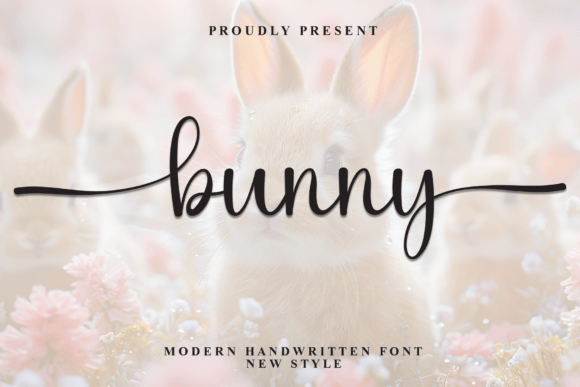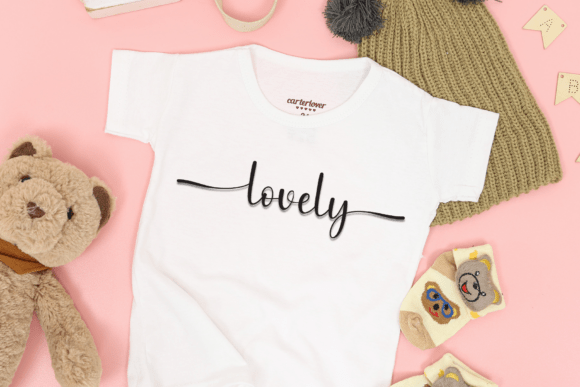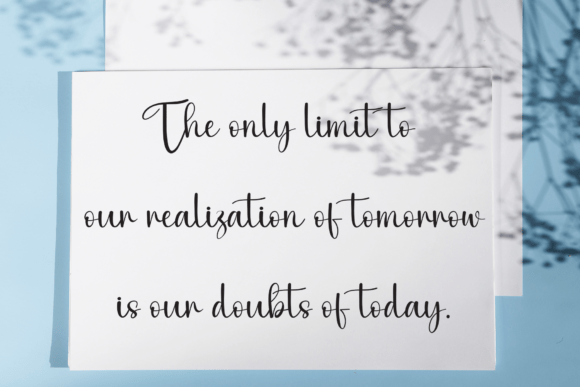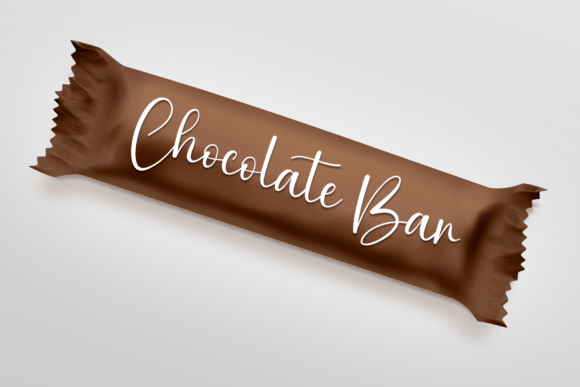
About the Bunny Font
Experience the unique personality of Bunny Font, a font designed for impact. Elegant and expressive, this script font flows with effortless beauty. Featuring graceful curves and smooth connections, it’s ideal for adding a sophisticated, handwritten feel to wedding invitations, logos, branding projects, and social media graphics. Whether you’re designing something romantic or refined, this script font brings a timeless charm to any design.